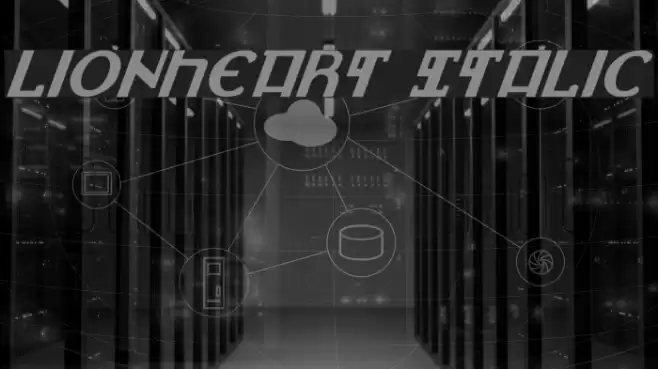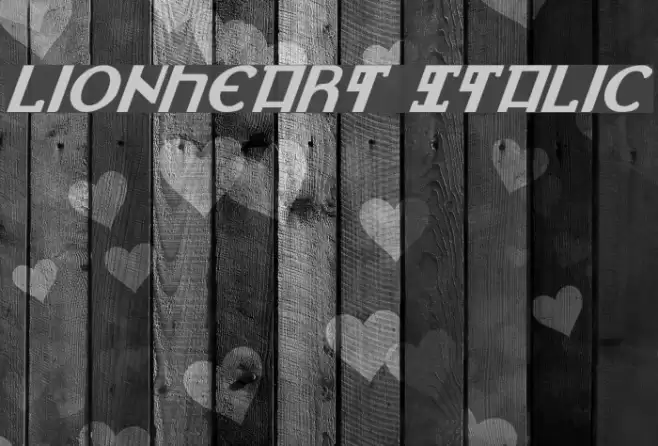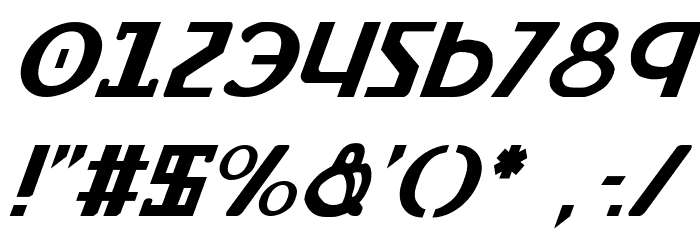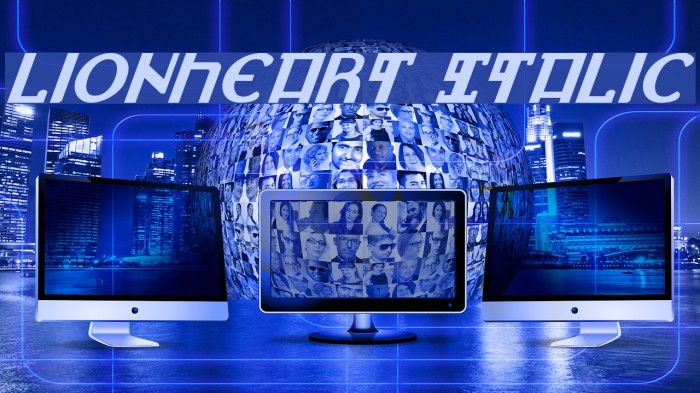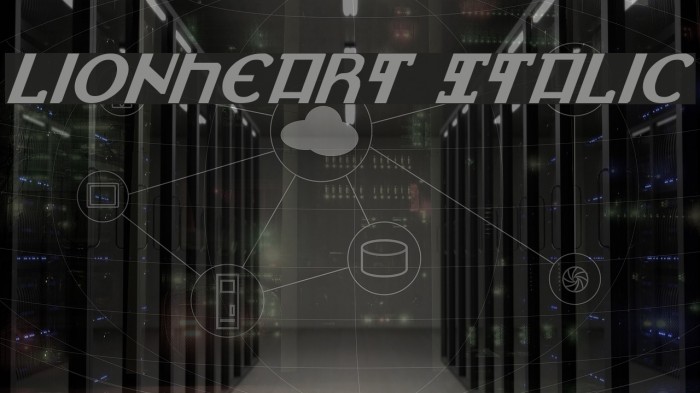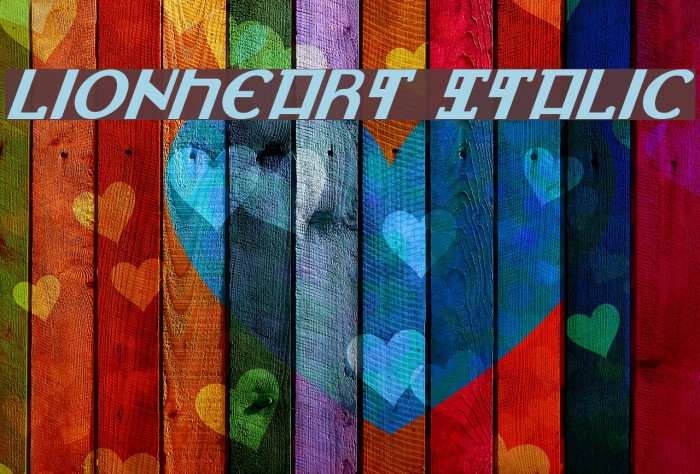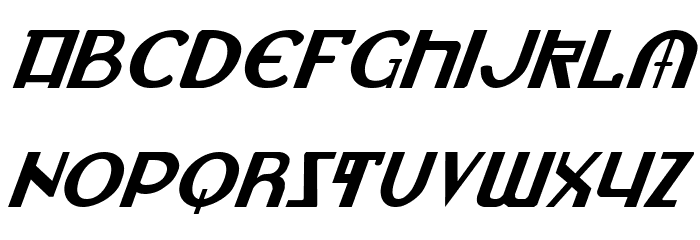
Lionheart Italic Font
Lionheart Italic Description
This font features a bold and dynamic italic style, characterized by its strong, angular lines and sharp edges. The uppercase letters exhibit a unique blend of geometric and futuristic elements, creating a sense of movement and energy. The lowercase letters maintain this dynamic feel, with consistent slant and angularity. Numbers and special characters follow the same design principles, ensuring a cohesive look across all glyphs. The font's distinct style makes it stand out, offering a modern and edgy aesthetic.
A bold, angular italic font with a modern, dynamic style.
- Proposed Projects: Ideal for branding, sports team logos, futuristic designs, and dynamic posters.